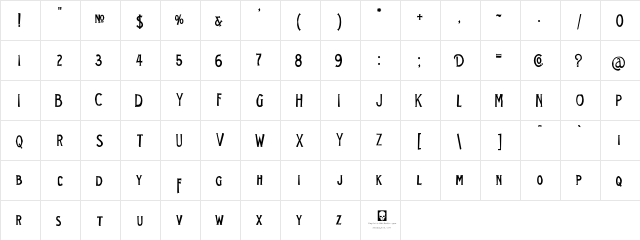
LHF Billhead 1900 Regular Font Preview
LHF Billhead 1900 Regular
LHF Billhead 1900 Regular Font Details
| Foundry | Tom Kennedy for Letterhead Fonts |
| Designer | Tom Kennedy |
Design Context for LHF Billhead 1900 Typeface
LHF Billhead 1900 offers clean, dependable letterforms without strong stylistic allegiance, making it a practical choice for designers who need flexibility.